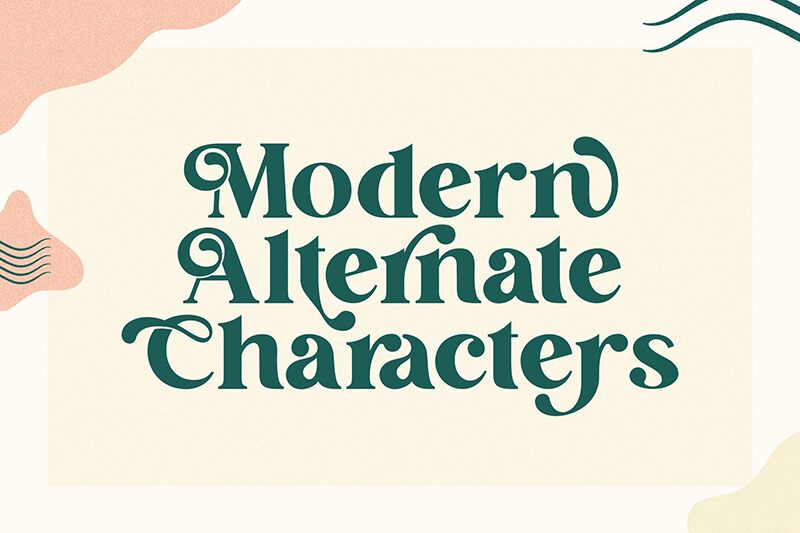
Neka Laurent font is a free serif font created by Riyadh Rahman. With its antique flair and decorative serifs, this typeface brings a modern twist to the classic serif style. The letters follow each other in a flowy, expressive way making them truly eye-catching both individually and together. It features artistic curves and contemporary application in branding and fashion.
Use this font family in several branding and advertising projects of all sizes, as well as in packaging design, promotional items, fashion design, and clothing branding. A word or large paragraph written with this font can be astonishing.